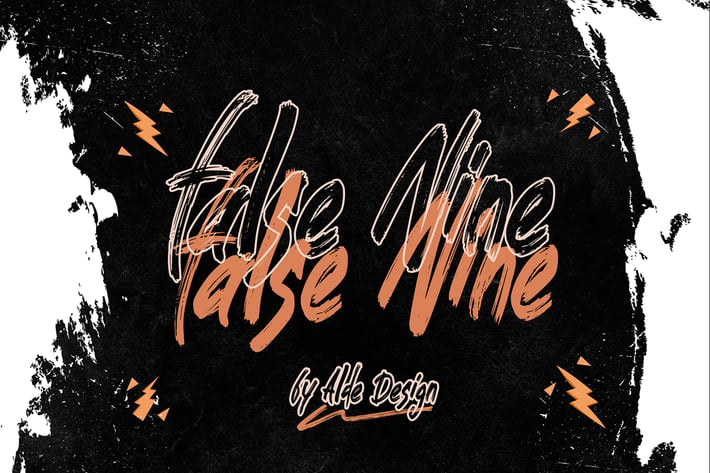
False Nine - Strong Brush Font
False Nine // Strong Brush Font
False Nine - Strong Brush Font is a casual, fun handwritten font, created by using a brush pen. Clean and a little bit quirky, this font is the perfect fit for all of your logos, branding, social media, and crafty DIY projects.
Stylish modern handwritten script
Gorgeous Swash (Underlines)
Special Ligatures